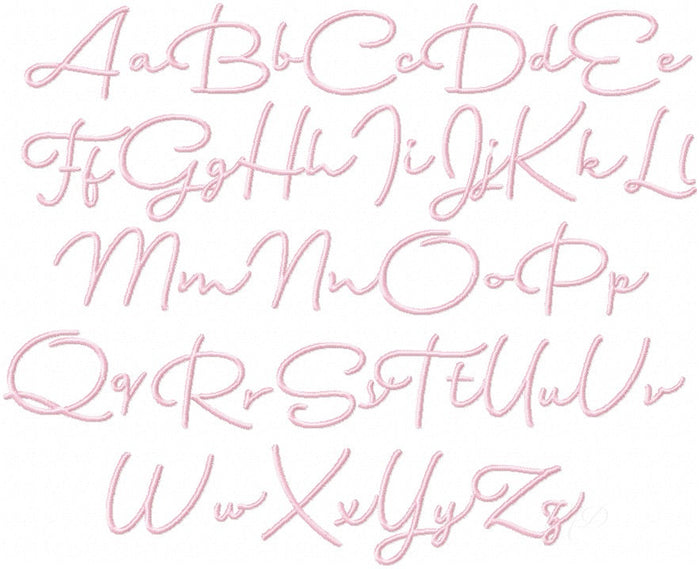
Sweet Dreams Embroidery Font Package
Transform your craft projects with the Sweet Dreams Embroidery Font Package. This modern script font features stunning satin stitching that adds a sweet and sophisticated look, especially when displayed in lowercase letters. Each font size contains 52 files, accommodating both uppercase and lowercase letters, ideal for crafting monograms and custom designs.